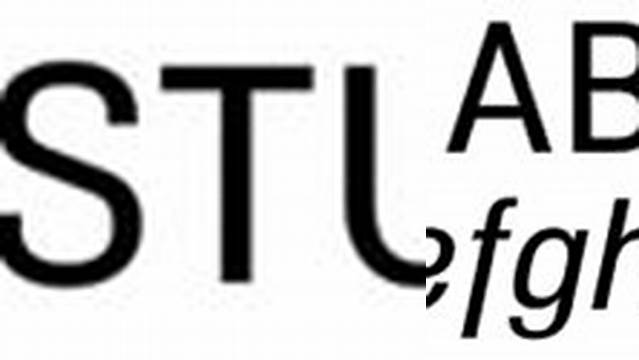
Neogram Condensed Medium Font: Free Download & Design Guide
Neogram Condensed Medium Free Font: Your Guide to a Sleek Modern Design
Hey guys! Ever feel like your designs need a little oomph, a touch of modernity that screams "I'm with it"? Well, you're in luck! Today, we're diving deep into the Neogram Condensed Medium Free Font, a typeface that's been making waves in the design world. This font is a real gem, perfect for adding a touch of sophistication and contemporary flair to your projects. Whether you're a seasoned designer or just starting out, understanding the nuances of a font like Neogram can seriously level up your game. We'll explore everything from its unique characteristics to how you can use it to create stunning visuals. So, buckle up, because we're about to embark on a journey through the world of typography, with the Neogram Condensed Medium Free Font as our trusty guide! Get ready to unlock a world of design possibilities! Let's jump in, shall we?
Decoding the Essence of Neogram Condensed Medium
So, what exactly makes the Neogram Condensed Medium Free Font so special? This font is a geometric sans-serif typeface, meaning it's characterized by clean lines and a lack of serifs (those little decorative strokes at the end of letters). The "condensed" part refers to its narrow width, which allows you to fit more text in a given space. The "medium" refers to the weight, which is a balance between light and bold. Think of it as the Goldilocks of fonts – not too heavy, not too light, just right! This combination makes Neogram incredibly versatile. It's legible at various sizes, making it ideal for both headings and body text. The geometric design gives it a modern, clean aesthetic that's perfect for contemporary designs. The condensed nature is especially useful when you're tight on space, allowing you to pack a punch without sacrificing readability. What's even better is that it is FREE! That's right, you can download and use this font without spending a dime. This makes it accessible to everyone, from hobbyists to professional designers. The font's versatility extends to its use cases. You can use it for branding, web design, posters, and even in presentations. It's a real workhorse, adaptable to a wide range of design needs. The clean and structured design of the Neogram Condensed Medium font makes it suitable for a variety of purposes. For instance, its condensed nature makes it a great choice for headings and titles, ensuring that they grab attention without taking up too much space. Additionally, its modern and sleek appearance is well-suited for creating a professional look and feel. This makes it a preferred option for businesses and individuals who want to establish a strong brand identity. Moreover, the font's clean lines contribute to a sense of order and professionalism, making it an excellent choice for corporate communications, website design, and print materials. With its balance of style and practicality, the Neogram Condensed Medium font provides a dependable solution for a broad spectrum of design applications, guaranteeing that the message is effectively communicated. Ultimately, the essence of the Neogram Condensed Medium Free Font lies in its ability to provide a modern, readable, and space-efficient solution for your design needs. It's a fantastic tool to have in your design arsenal.
Unveiling the Key Features and Characteristics
Alright, let's break down the key features that make the Neogram Condensed Medium Free Font stand out. First off, the geometric design. This means the letters are constructed using basic geometric shapes like circles and straight lines. This gives the font a very structured and modern feel. This is a great choice if you’re going for a contemporary aesthetic. Secondly, the condensed nature. As we mentioned earlier, this means the letters are narrower than a standard font, which allows you to fit more text on a line. This is particularly useful when space is at a premium, such as in headlines, or on mobile screens. Thirdly, the "medium" weight. This is a fantastic balance. It’s not too heavy, which can look overpowering, and it’s not too light, which can be difficult to read at smaller sizes. It's a perfect blend of readability and visual impact. Fourthly, the free availability. You can download and use it without any cost. This makes it accessible to everyone, from students to small businesses. And finally, its versatility. It works great for various projects, from logos and website designs to posters and print materials. These features combine to create a font that's both functional and stylish. The geometric structure ensures visual harmony and consistency, while the condensed design allows for effective use of space. The medium weight contributes to its versatility, making it suitable for diverse design applications, and the free availability broadens its accessibility. The flexibility of Neogram Condensed Medium makes it an excellent choice for a variety of projects, providing both aesthetics and practicality. Its clean lines and simple design help establish a professional look. Its capacity to communicate a message clearly, and its free availability, all contribute to its desirability for a wide audience. If you're looking for a font that combines style, functionality, and accessibility, Neogram Condensed Medium Free Font is a fantastic choice. In essence, this font offers a balance of form and function, a modern design that works across different mediums. It's the kind of font that can make your design stand out without being overwhelming, something every designer dreams of. With its geometric design, condensed form, and free availability, the Neogram Condensed Medium Free Font is a great asset for designers. It's a font that truly punches above its weight.
Design Applications and Practical Uses
Ready to put the Neogram Condensed Medium Free Font to work? Let's explore some practical applications where this font shines. For branding and logos, its modern and clean aesthetic makes it perfect for creating a strong brand identity. The condensed nature can be especially beneficial in logos, as it allows you to include more information in a compact space. For website design, its readability and contemporary look make it a great choice for both headings and body text. The condensed form can be useful for mobile-friendly designs. For posters and flyers, its bold and striking appearance makes your message stand out. The variety of weights available in the Neogram family provides flexibility in creating visually appealing layouts. In print materials, from business cards to brochures, the clean lines ensure a professional look. Because of the condensed structure, you can convey more information in less space. In social media graphics, it can create eye-catching visuals that grab attention. The font's adaptability makes it a great tool for producing a variety of visuals that perform well on different platforms. For presentations, Neogram can add a touch of modern sophistication to your slides, ensuring your information is clear and engaging. The legibility of this font makes it an excellent choice for presentation slides. Its versatility is its best asset, allowing you to use it in a variety of projects. It's incredibly useful for creating a clean and contemporary aesthetic in almost any design project you can imagine. So, whether you're creating a logo, designing a website, or crafting a social media post, the Neogram Condensed Medium Free Font is a solid choice. The font’s adaptability makes it a great asset for a variety of projects. The font’s ability to look clean and modern in almost any design project is a bonus for designers. As you can see, the possibilities are endless! The key is to experiment and see how it works best for your specific needs.
Tips and Tricks for Using Neogram Condensed Medium Effectively
Now, let's get into some tips and tricks to help you make the most of the Neogram Condensed Medium Free Font. First, consider the context. Because of its condensed form, it's great for headlines and short bursts of text, but it might not be the best choice for large blocks of body text. Second, choose the right size. Experiment with different sizes to find the perfect balance between readability and visual impact. Third, pair it with other fonts. Neogram pairs well with other fonts, but it's always good to experiment with different combinations. Try pairing it with a more traditional serif font for body text, or another sans-serif font with a different weight. Fourth, think about color. Experiment with different colors to see how they affect the overall look and feel of your design. It looks fantastic in both dark and light colors. Fifth, optimize spacing. Pay attention to kerning (the space between individual letters) and leading (the space between lines of text) to ensure optimal readability. Sixth, use different weights. Neogram often comes in multiple weights (light, regular, bold, etc.). Utilize different weights to create visual hierarchy and emphasize important information. Seventh, test your design. Always test your design on different devices and screen sizes to ensure that the font looks good in all contexts. Finally, be creative and have fun! The best way to master any font is to experiment and discover what works best for your unique design projects. By keeping these tips in mind, you can utilize the Neogram Condensed Medium Free Font to its fullest potential, designing captivating visuals. With the right combination of style and functionality, it is guaranteed to help improve your design capabilities. When properly implemented, you can get the most out of it. Remember, the possibilities are limitless, so don't be afraid to explore and discover all the amazing things you can create.
Avoiding Common Mistakes
Let's talk about some common mistakes to avoid when using the Neogram Condensed Medium Free Font, so you can ensure your designs are top-notch. One of the most common mistakes is overusing the font. Because it's so versatile, it's tempting to use it everywhere, but that can make your design feel cluttered and overwhelming. Use it strategically, and let its impact be felt. Second, ignoring readability. Always prioritize readability, especially for body text. If the font is too small or the spacing is off, your message will be lost. Third, not considering the context. This font shines in certain contexts, but might not work in others. Make sure you understand the needs of your design and choose the font accordingly. Fourth, using the wrong weight. Utilizing the wrong weight can undermine the design. Try using different weights to give your design balance and contrast. Fifth, poor kerning and leading. This is the space between letters and lines, respectively. The space between letters and lines can heavily impact readability. Sixth, ignoring color contrast. Make sure your text has enough contrast with the background to be legible. Dark text on a light background, or vice versa, is usually a safe bet. Seventh, forgetting to test. Previewing your design on different devices and screen sizes can help you identify and fix potential issues before they go live. By avoiding these common pitfalls, you can ensure that your designs with the Neogram Condensed Medium Free Font are both effective and visually appealing. Avoiding these mistakes will make your design stand out, rather than distracting from your overall message. Taking the time to consider the above factors will prevent common problems and ensure the best outcome. By doing so, you will get more out of the font.
Final Thoughts: Embracing the Power of Neogram
So, there you have it! The Neogram Condensed Medium Free Font is a fantastic tool for any designer. It's modern, versatile, and, best of all, free! Its clean lines and condensed form provide a sleek aesthetic that works wonders for various projects. From branding to web design, this font gives you a range of design options. Remember to download it from a reliable source, experiment with different uses, and always prioritize readability. By following the tips and tricks we've discussed, you'll be well on your way to creating stunning designs. Remember that you have the resources and understanding to bring your creative vision to life. This font offers a great foundation for your creativity. Go out there, experiment, and create something amazing! Embrace the power of Neogram and take your designs to the next level. Happy designing, guys!